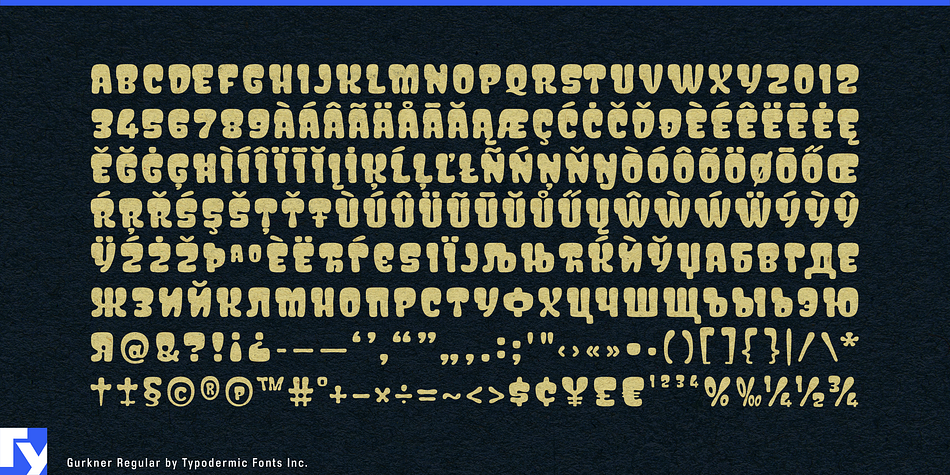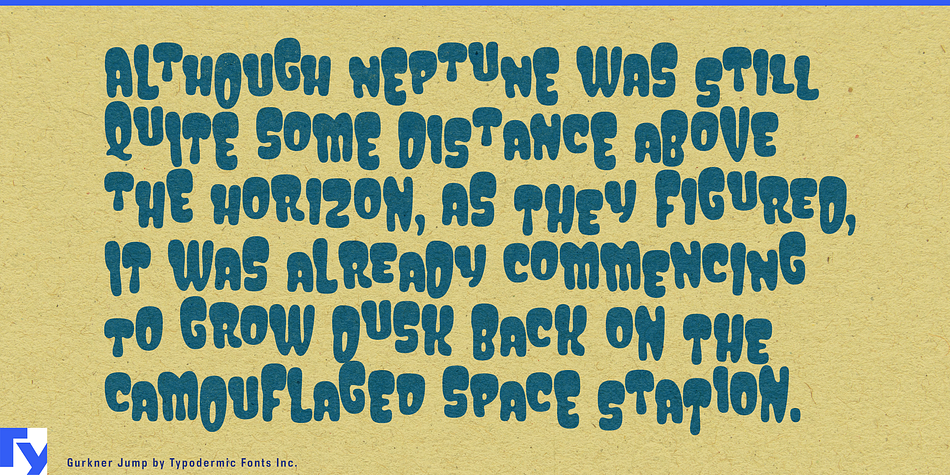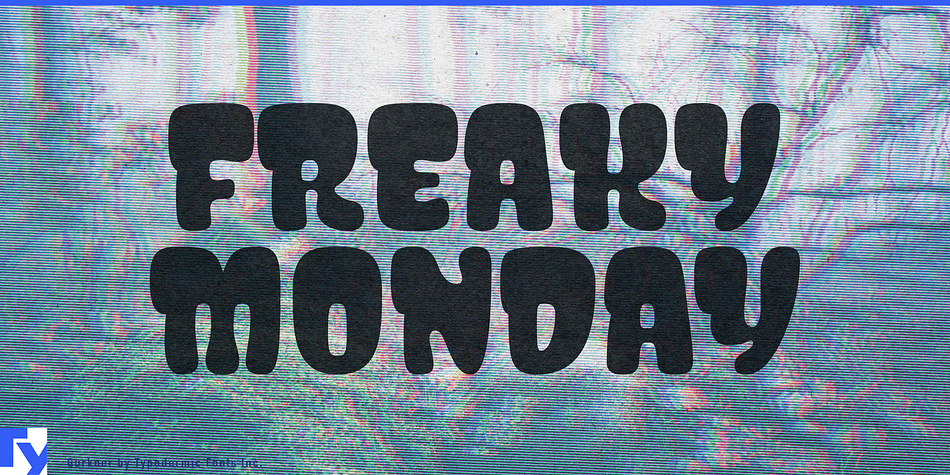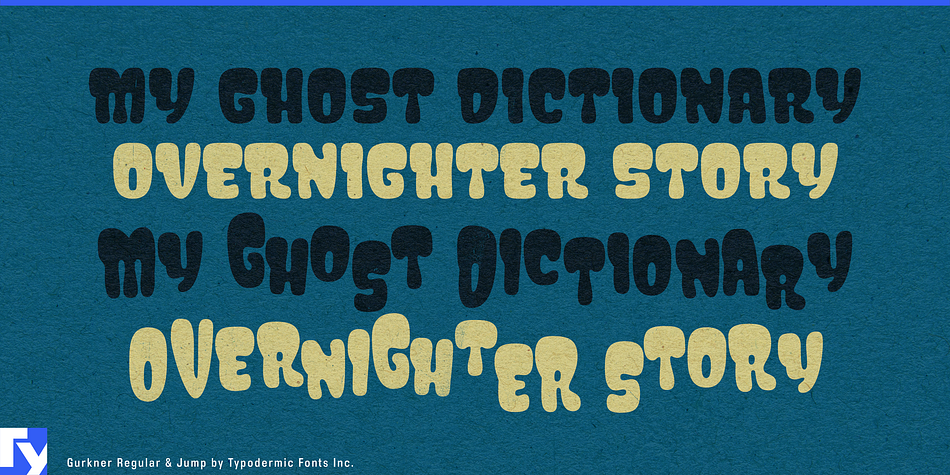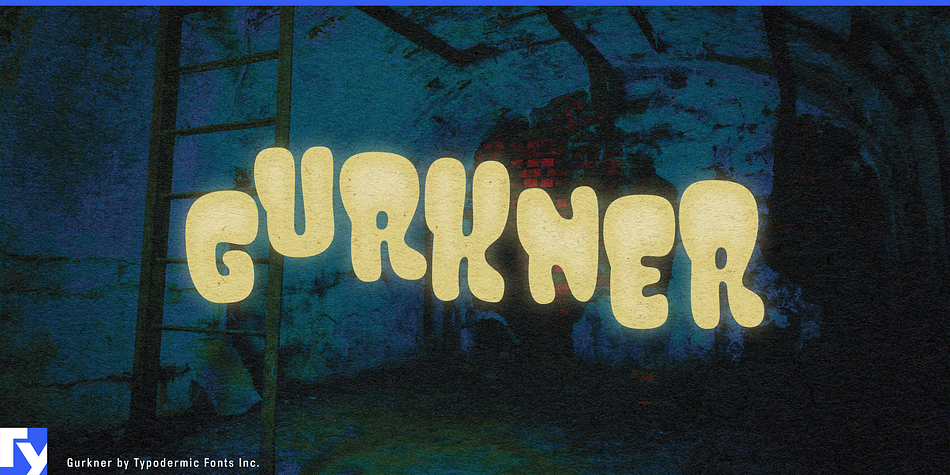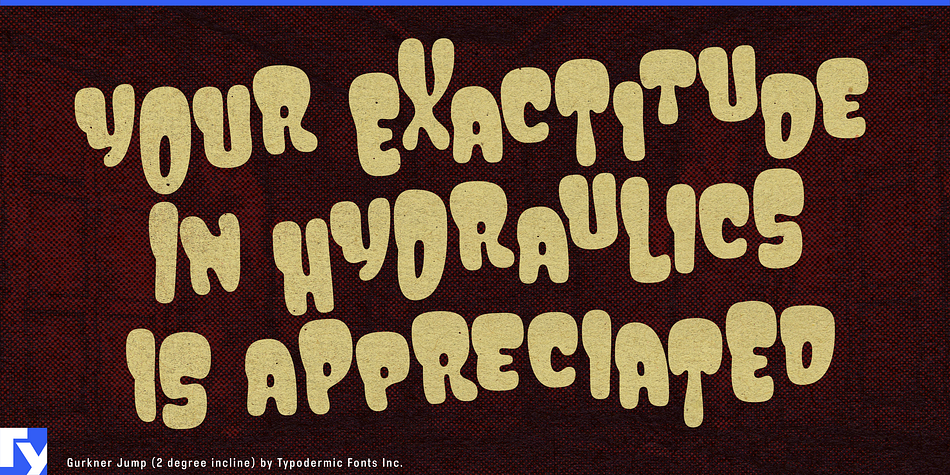
Gurkner is a retro and kids font family. This typeface has two styles and was published by Typodermic Fonts Inc.
Gurkner can take on two forms: First, there’s the straight form, a ruly Gurkner with all its ducks in a row—an obedient army of Caspers. Then there’s a quixotic form, a demented Gurkner that bounces around the house like a poltergeist on crack.